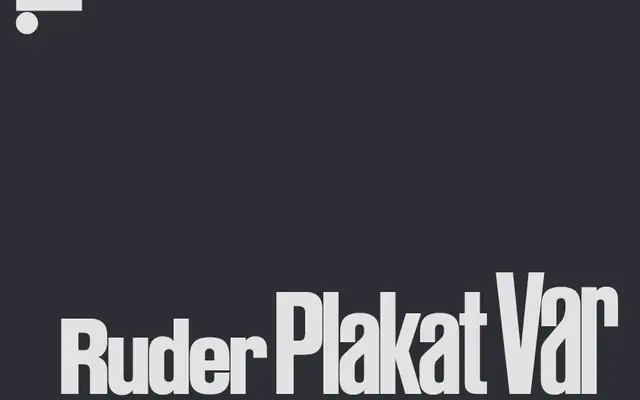
Ruder Plakat VIP
Lineto · Hans-Christian Pulver, Arve Båtevik, Anatole Couteau · 2022
A variable digitisation of Emil Ruder's condensed wood type Plakatschrift, developed at Lineto with three axes and nearly 1,400,000 automatically kerned letter pairs.
Based on wood type developed by Emil Ruder with students at the Allgemeine Gewerbeschule Basel in the early 1950s and used widely in Swiss poster design from 1962 onwards, the font was digitised by Hans-Christian Pulver, a former Ruder student, alongside Arve Båtevik and Anatole Couteau. The variable version features 18 masters and three axes, with kerning automated via custom software written by Mathieu Reguer to handle the scale of pairs inherent to a thousand-glyph digital font. Released by Lineto in 2022, it traces a direct line from the Basel School's poster typography into contemporary variable font technology.
A digitisation of Emil Ruder's condensed wood type Plakatschrift, rooted in Swiss poster grotesque tradition. The compressed, high-contrast letterforms and poster-scale origin place it squarely in display use.